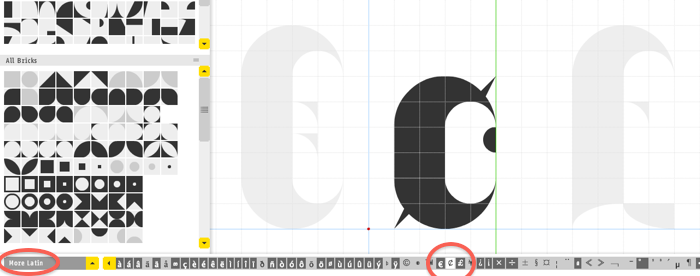
Nice...I love that 5.
P.S. The & is sensational!
Woah...this is awesome!!! Very nice work!
Beautiful smooth curves, simple letter shapes. Plenty of work. Splendid way to celebrate the great occasion. Congratulations to RM Oliver, and your great-grandson. 10/10
@fontcollector: Some good points there Dan - I have ammended the Z and quotation mark. I can't find anything that is causing the gap between the semicolon and cent sign ... the gap doesn't show up at all on the preview (see below)
Regarding the discrepancy between actual and shown characters ... 'RM Oliver' is a version of a full set that I am getting ready to release for sale. Having cloned the original, I erased some of the characters - but FS still shows the full number (214)
The revisions of Z and the straight double quotation mark make this terrific font even better. I'm pleased that you liked my suggestions, Ray!
As for the differing number of glyphs, I now understand the discrepancy. I've also noticed that when a saved character is deleted, the number does not decrease. Just a harmless glitch in the system, I suppose.
I attempted something like this with Roboto Sans, but it was a fail. Love it 10/10
Looks like one of those "for technical drawings" fonts used on blueprints, but it has a certain wow-factor. I'm glad you have not hidden this, after your intriguing comment under my "Alex" I simply had to have a look here! This font is clean and has a lot of personality. I'm glad "Oliver" got a TP. Am just downloading Oliver :) I hope the little man is doing well :)
When I read 'Looks like one of those "for technical drawings" fonts used on blueprints' it took me straight back to those plastic stencil sets that were used for the titles etc of tech. drawings ... I hadn't seen this in RM Oliver before.